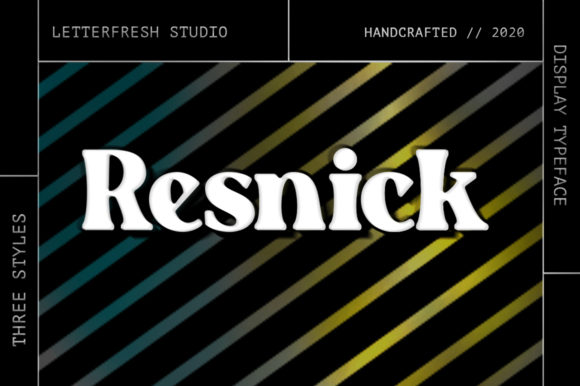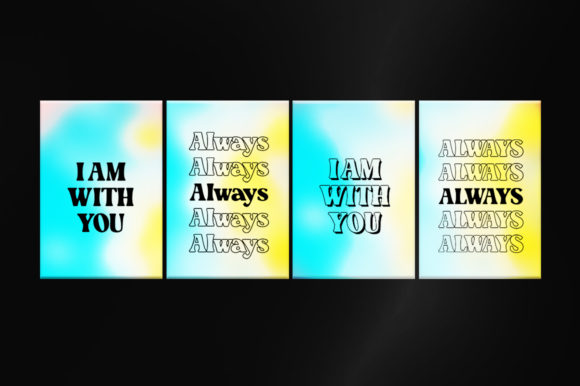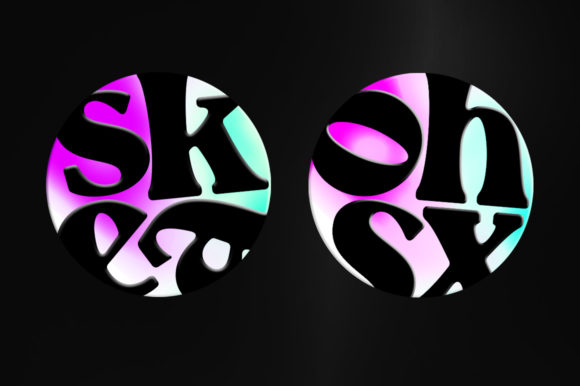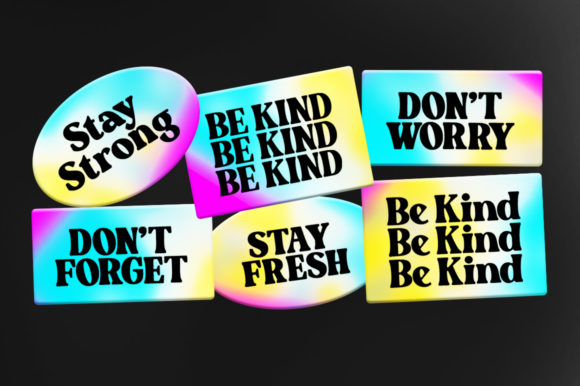
Resnick Font: Bold Retro Typography for Eye-Catching Logo Design
About the Resnick Font
The wait is over! The incredible Resnick Font is now available for your design toolkit. Resnick is a bold, retro styled display font. Elegant yet chunky lettered, this font is incredibly versatile fitting a wide range of design ideas!
Resnick excels as a headline font for posters, branding materials, and short impactful text on packaging. Its bold, retro style commands attention, making it ideal for projects needing a strong visual presence. However, its chunky letterforms are less suitable for body copy or UI elements where readability over long stretches of text is crucial. Avoid using it for extensive paragraphs or small sizes.
Pairing Resnick with a clean sans-serif like Open Sans for body text creates a strong contrast and enhances readability. For a more playful feel, consider pairing it with a script font like Pacifico, but use the script sparingly as an accent. Alternatively, a geometric sans-serif like Montserrat could provide a modern, balanced counterpoint to Resnick’s retro aesthetic.
Resnick’s core personality is bold and retro, conveying a sense of vintage sophistication with a modern edge. This makes it perfect for brands aiming for a nostalgic yet contemporary image, perhaps in the fashion, music, or entertainment industries.
Resnick Font Usage Examples
Resnick Font Example